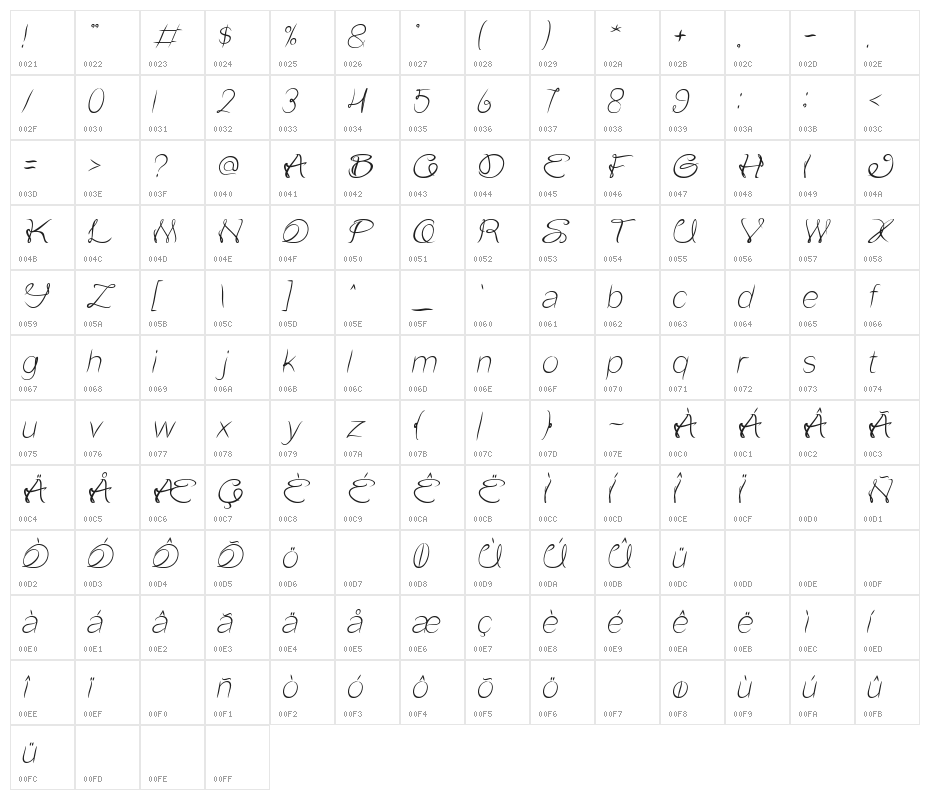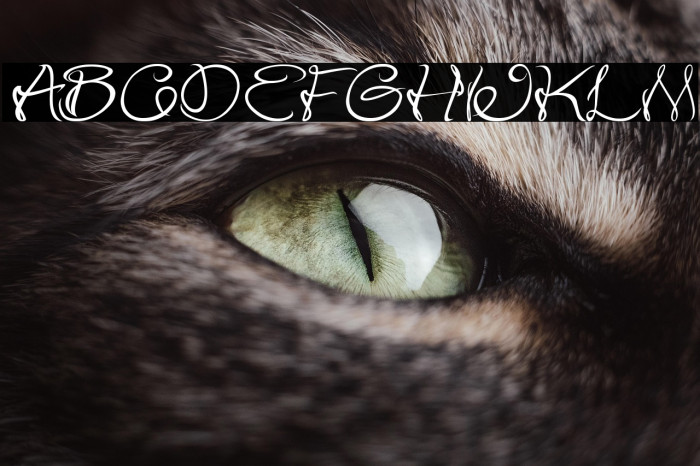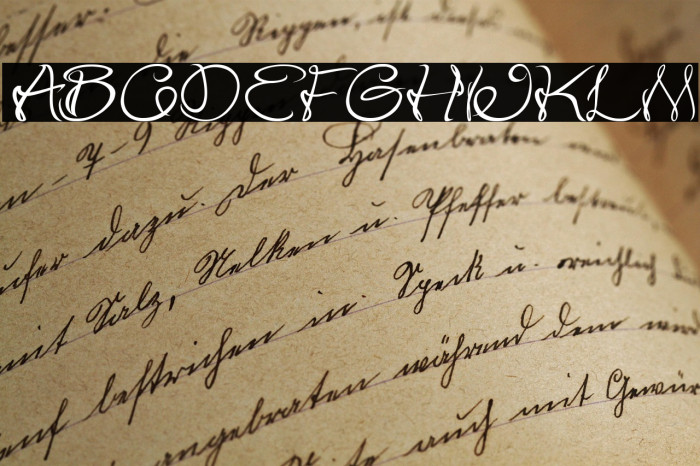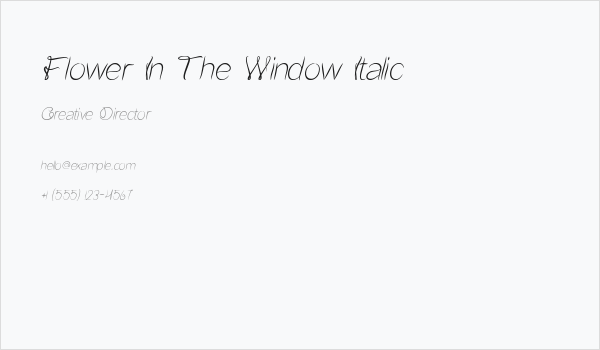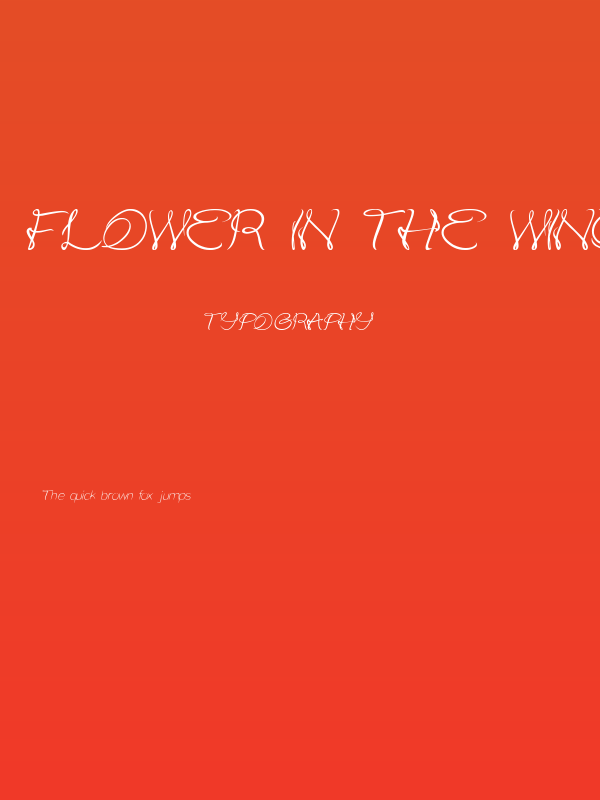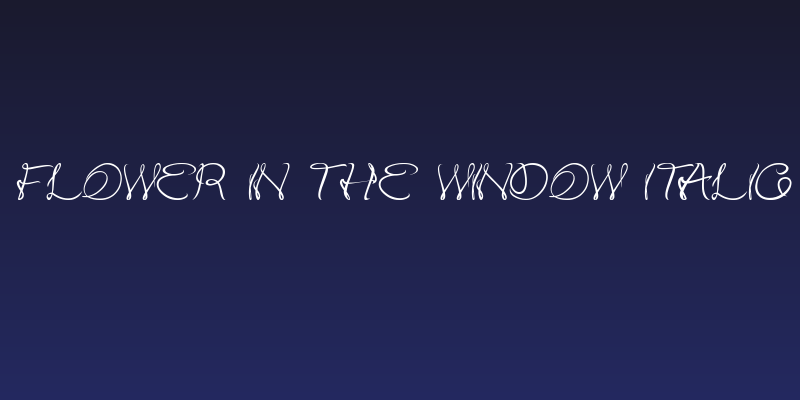
Flower In The Window Italic Font
Flower In The Window Italic Description
This font features a whimsical and artistic design, characterized by its flowing and interconnected strokes that give it a sense of movement and elegance. The letters are crafted with a delicate touch, incorporating loops and curves that create a unique and decorative appearance. The font maintains a consistent slant, enhancing its italic nature, while the thin lines and high contrast between thick and thin strokes add to its sophisticated style. The overall look is both playful and refined, making it suitable for creative and expressive projects.
| Proposed Projects | Ideal for wedding invitations, greeting cards, artistic posters, and branding that requires a touch of elegance and creativity. |